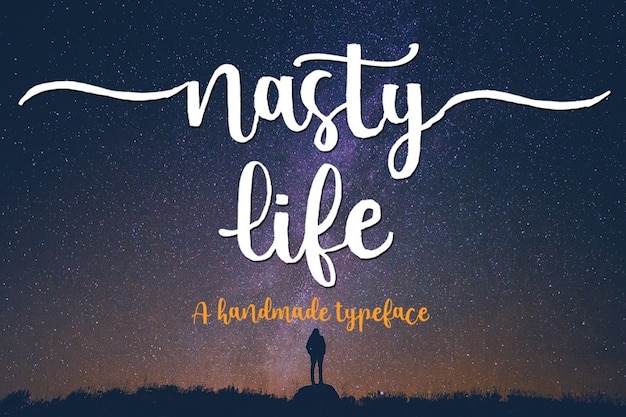
Nasty Life
Nasty Life Font
Struggle Studio
Nasty Life is a font that turns the ordinary into an extraordinary handwritten adventure. Each letter feels like it jumped straight from the pages of a quirky journal, making your words ooze with personality. It's as if your sentences decided to ditch the formality and embrace a cheeky, handcrafted vibe. With Nasty Life, your text transforms into a lively, cute dialogue, as if the alphabet had a mischievous personality of its own. It's the font equivalent of scribbling notes in your favorite journal, injecting a dose of playfulness and charm into every stroke.